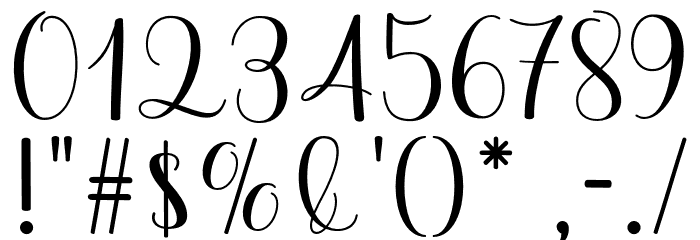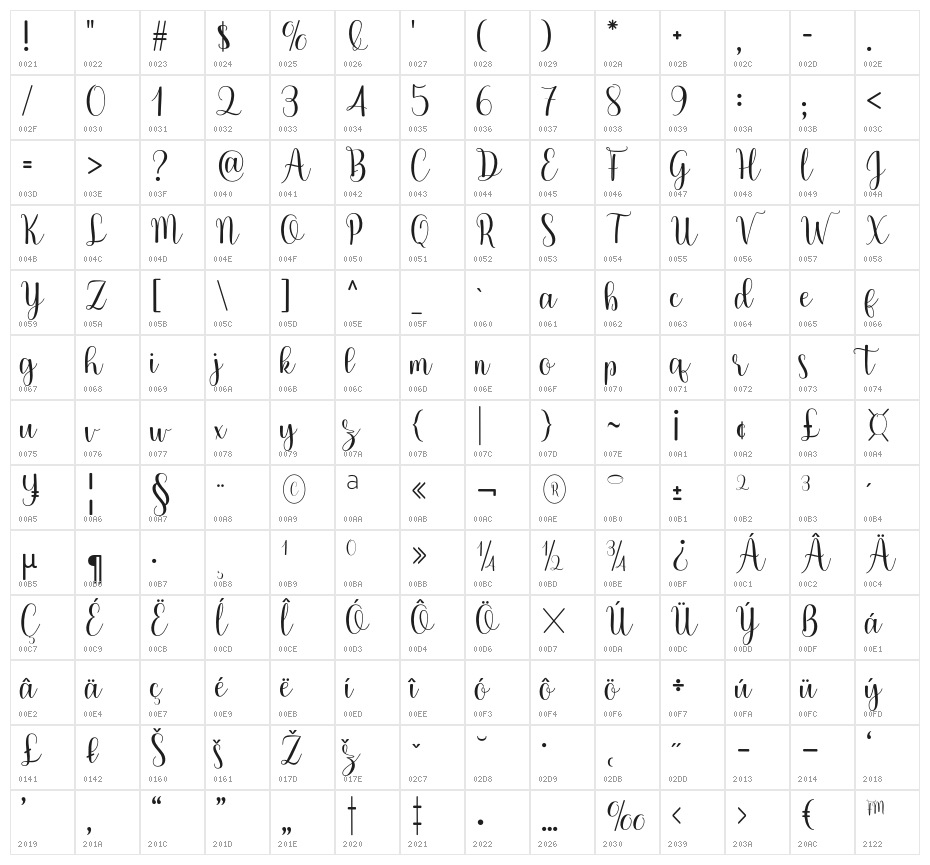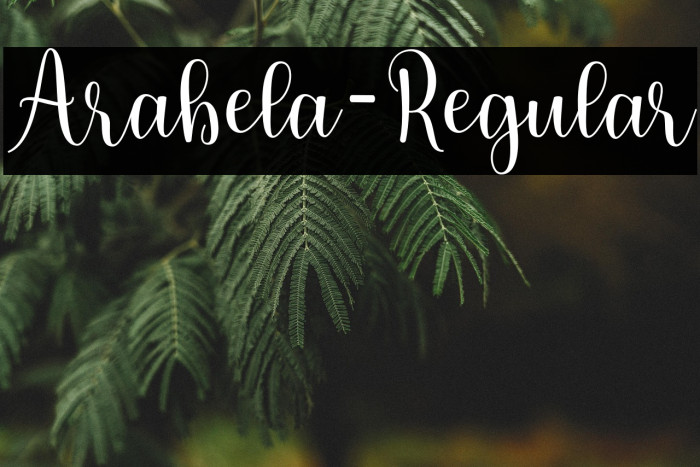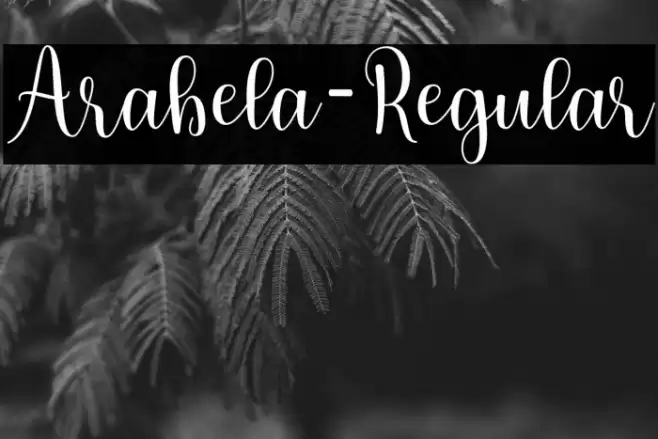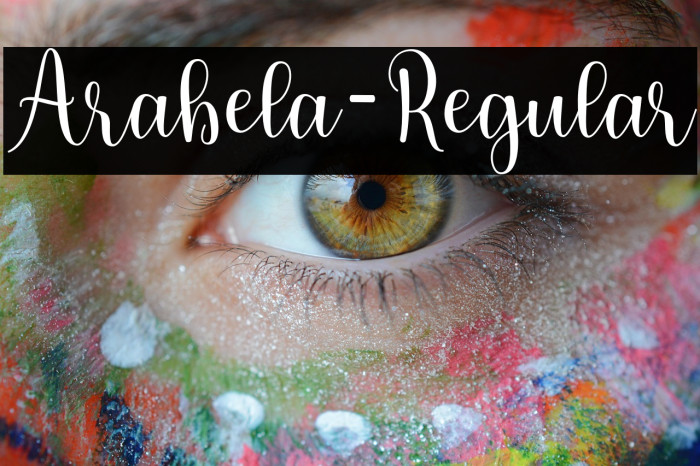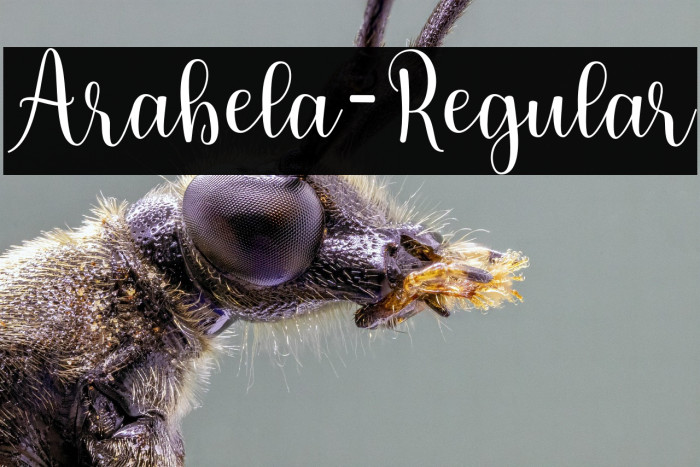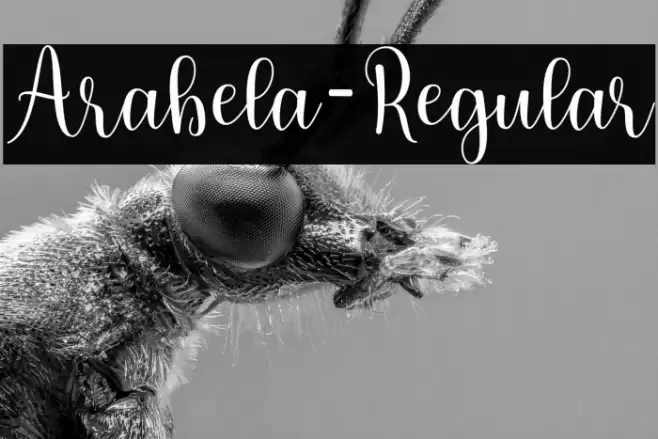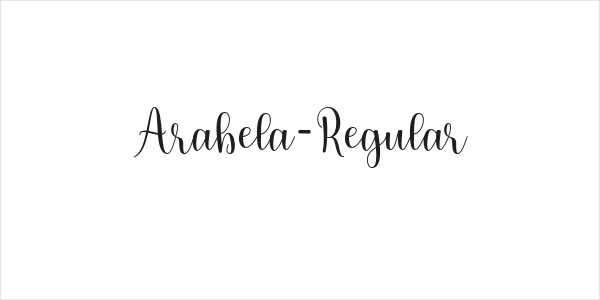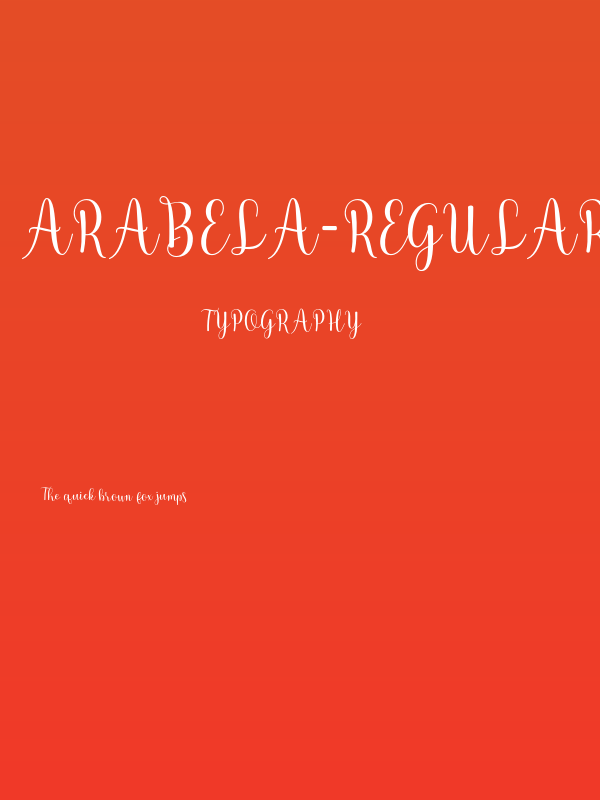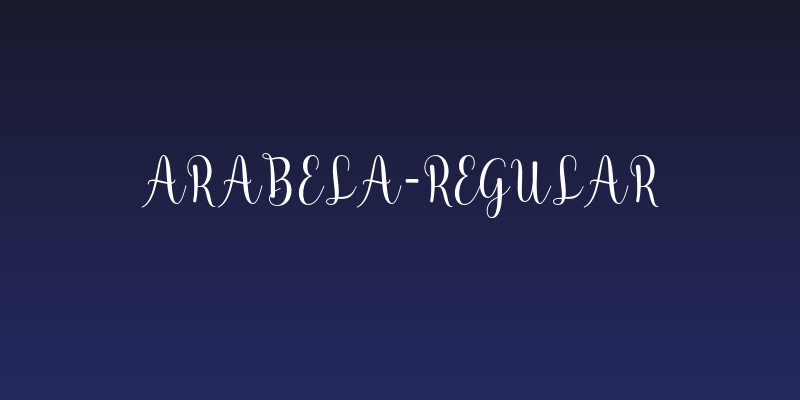
Arabela-Regular Font
Arabela-Regular Description
This font features a charming and elegant script style with a flowing, cursive design. The uppercase letters are tall and graceful, with sweeping curves and delicate loops that give a sense of movement and fluidity. The lowercase letters maintain this elegance, with rounded forms and subtle flourishes that add a touch of sophistication. The numerals are consistent with the overall style, offering a harmonious blend of curves and straight lines. Special characters are thoughtfully designed to complement the script, ensuring a cohesive look across all text. This font exudes a sense of romance and creativity, making it ideal for projects that require a personal and artistic touch.
| Proposed Projects | Wedding invitations, greeting cards, branding, and creative projects. |